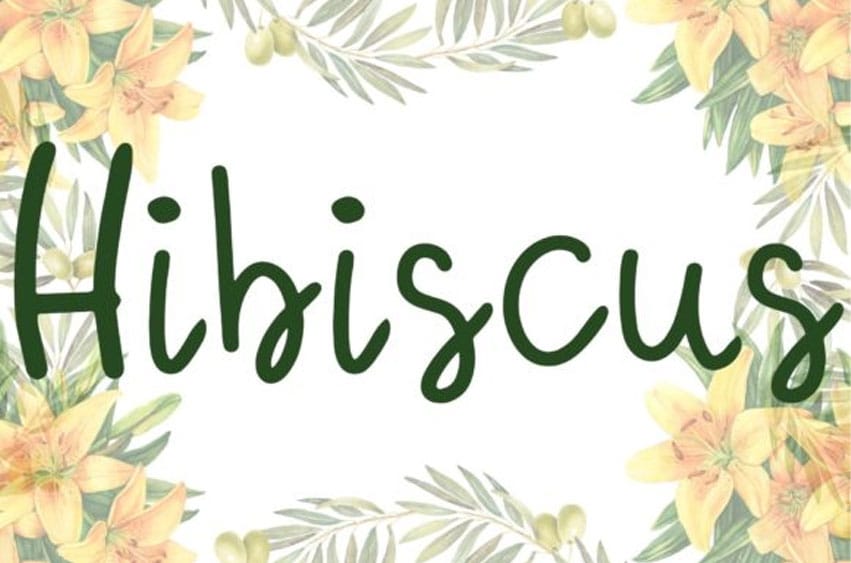
Hibiscus Font is a whimsical and chic handwritten font.
It is perfect for any branding project, such as logos, t-shirt printing, creative products, and more.